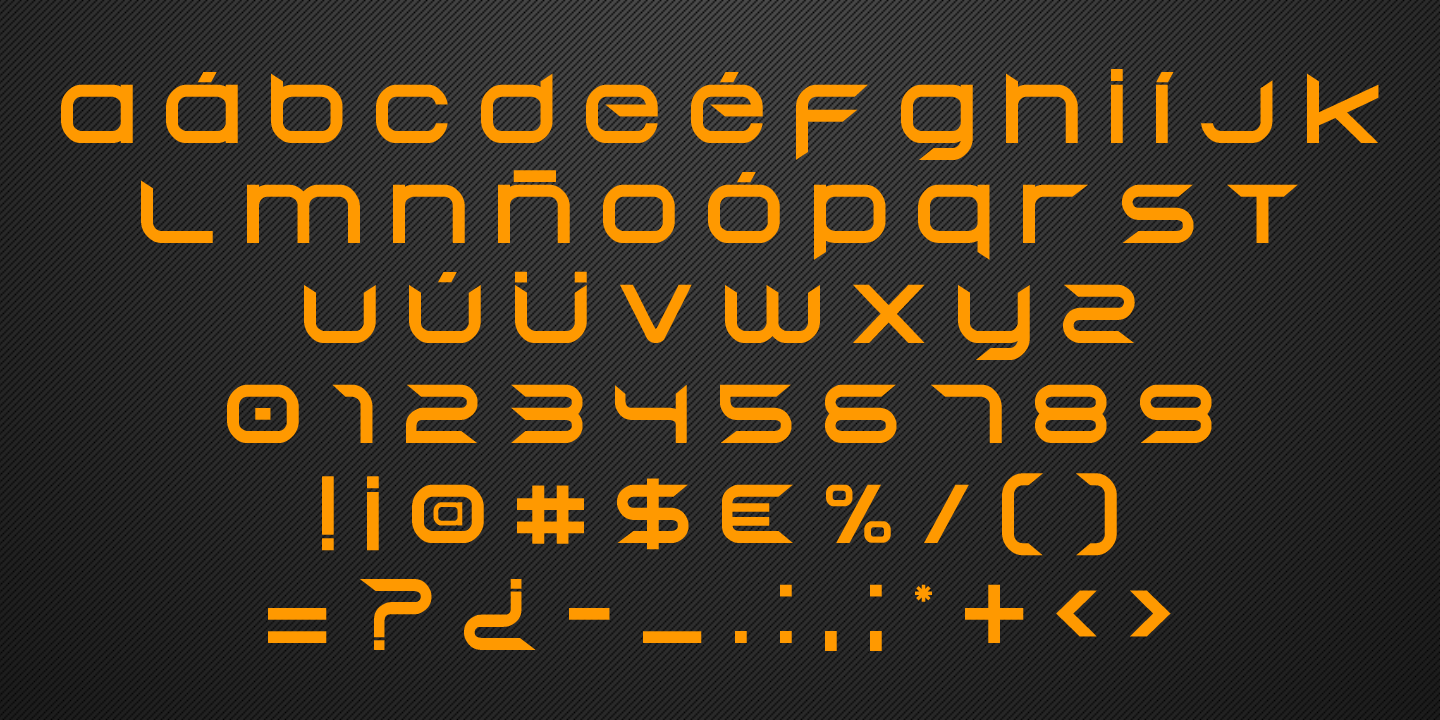
The Art of Cutting Edge Typography
Have you ever stared at a blank canvas, a blank page, or a blank screen, waiting for the perfect font to strike inspiration? That’s exactly what happened to me last week, and it led me to discover the Begok Font. This quirky display font has been making waves in the design community, and I’m excited to share its story with you.
Begok v15 is a display font like no other. Its unique feature is that the ends are cut off, giving it a charming, imperfect look that’s sure to add character to any design project. Whether you’re working on a logo, a poster, or a digital campaign, Begok Font is the perfect choice to add some visual interest and personality.
As a designer, you know how valuable it is to have a font that stands out from the crowd. Begok Font is a game-changer, offering a fresh perspective on typography that’s both stylish and unique. With its bold, eye-catching style, Begok Font is sure to elevate your designs and leave a lasting impression on your audience.
Begok Font Key Features
- Unique Characteristics: Begok Font features a unique blend of traditional and modern design elements, with intricate details and subtle texture, making it perfect for creative and artistic applications.
Begok Font Review
Overall, I think Begok Font has some great qualities, but it also has some areas where it falls short. Let’s dive in and take a closer look.
- Clean Lines**: Begok Font has a beautiful, modern aesthetic with clean lines that make it perfect for a variety of projects, from logos to digital displays.
- High Legibility**: The font is highly legible, making it a great choice for long blocks of text where readability is key.
- Unique Character**: Begok Font has a unique character that sets it apart from more common fonts, making it a great choice for designers who want to add some personality to their work.
- Limited Weight Options**: While Begok Font comes in a few different weights, it could benefit from more options to give designers more flexibility.
- No Italic**: Unfortunately, Begok Font does not come with an italic version, which may be a problem for designers who need to use italics in their work.
- No Support for Some Languages**: Begok Font does not support some languages, which may be a problem for designers who need to use it for multilingual projects.
While Begok Font has some limitations, I think it’s a great choice for designers who want a clean, modern font with a unique character. With a few more weight options and some additional language support, it could be a top choice for designers of all levels.
Tips: Use Begok Font for titles and headings to add a touch of elegance and sophistication to your designs.
Tips: Use Begok Font for creating custom typography and adding a unique touch to your designs.
Tips: Use Begok Font for creating presentations and documents that require a professional and elegant look.
Begok Font is ideal for:
- Creating elegant and sophisticated titles and headings.
- Designing custom typography for branding and marketing materials.
- Adding a unique touch to presentations and documents.